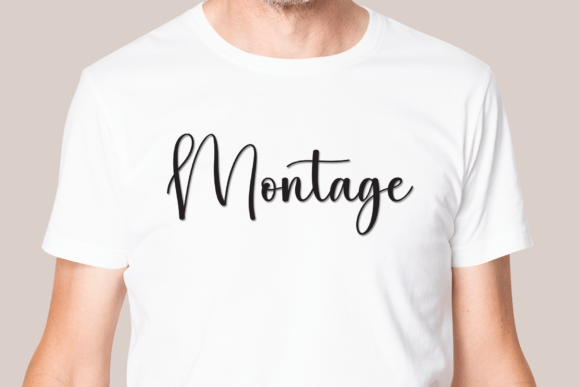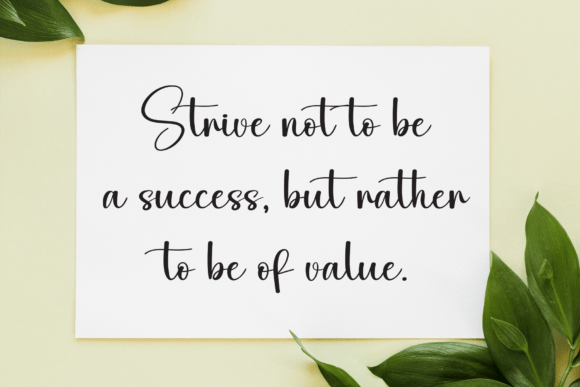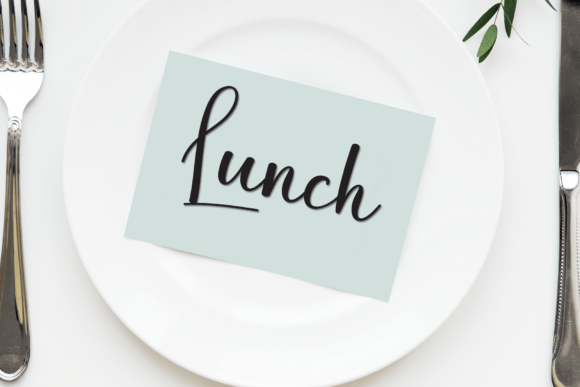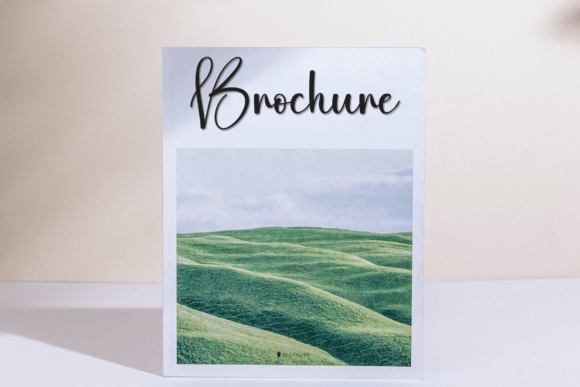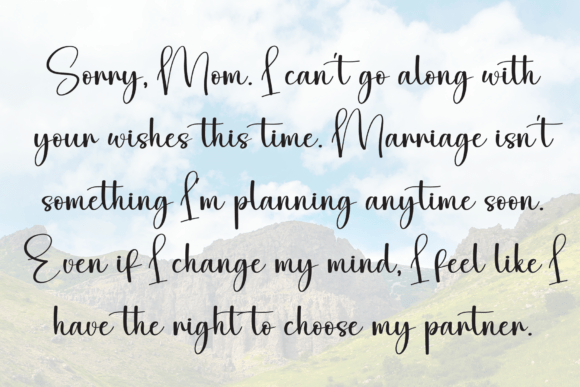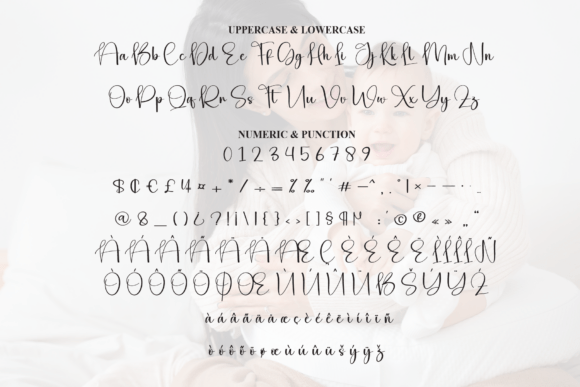
Unleash the Elegance: Discover the Allure of Babysitter Font
Have you ever stared at a blank canvas, waiting for inspiration to strike? The cursor blinks, and your mind goes blank. Suddenly, a gentle whisper of creativity awakens, and you’re drawn to a world of beautiful typography. This is where the Babysitter Font comes in – a stylish script font that embodies the essence of elegance and contemporary charm.
With its fluid curves and carefully crafted letterforms, Babysitter Font captures the beauty of hand-drawn calligraphy while embracing a modern twist. This versatile font is perfect for logos, invitations, packaging, and social media graphics, adding a refined and sophisticated touch to any design. Whether you’re a seasoned designer or a creative enthusiast, the Babysitter Font is a valuable addition to your toolkit, offering both versatility and visual appeal.
- Unique Characteristics: The font features a playful, cursive script with rounded edges and gentle curves, perfect for creating a friendly and approachable atmosphere.
Babysitter Font Review
As a designer, I’ve had the chance to work with the Babysitter Font, and I must say it’s a mixed bag. Here are my thoughts.
- Cute and playful aesthetic – perfect for kid-related projects or family-friendly brands.
- Good for headings and titles, where you want to add a bit of whimsy and fun.
- Supports a wide range of languages, which is a plus for international projects.
- Not suitable for formal or professional projects, where a more serious font is required.
- Lack of consistency in font weights and styles, which can make it harder to use in complex layouts.
- May not be as readable at smaller font sizes, which can be a problem for body text.
The Babysitter Font is a fun and playful font that’s perfect for certain projects. However, it’s not a versatile font that can be used in a wide range of situations. With some careful consideration of its limitations, it can be a great addition to your design toolkit. But for more formal or professional projects, you may want to consider a different option.
Tips for Getting the Most Out of Babysitter Font
For best results, use the Babysitter Font in bold or italic styles to emphasize important text.
Pair the Babysitter Font with simple, clean backgrounds to make it stand out.
The Babysitter Font is ideal for:
Children’s book illustrations
Playground signage
Childhood-themed party invitations